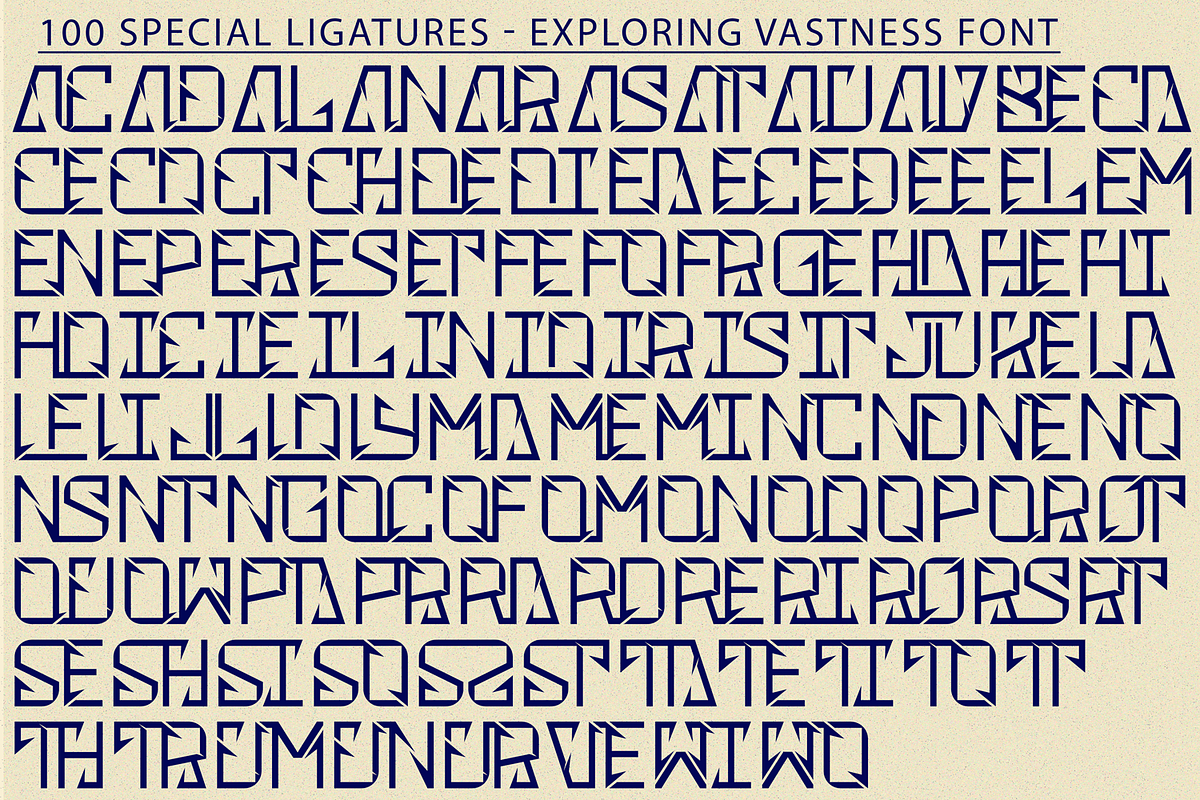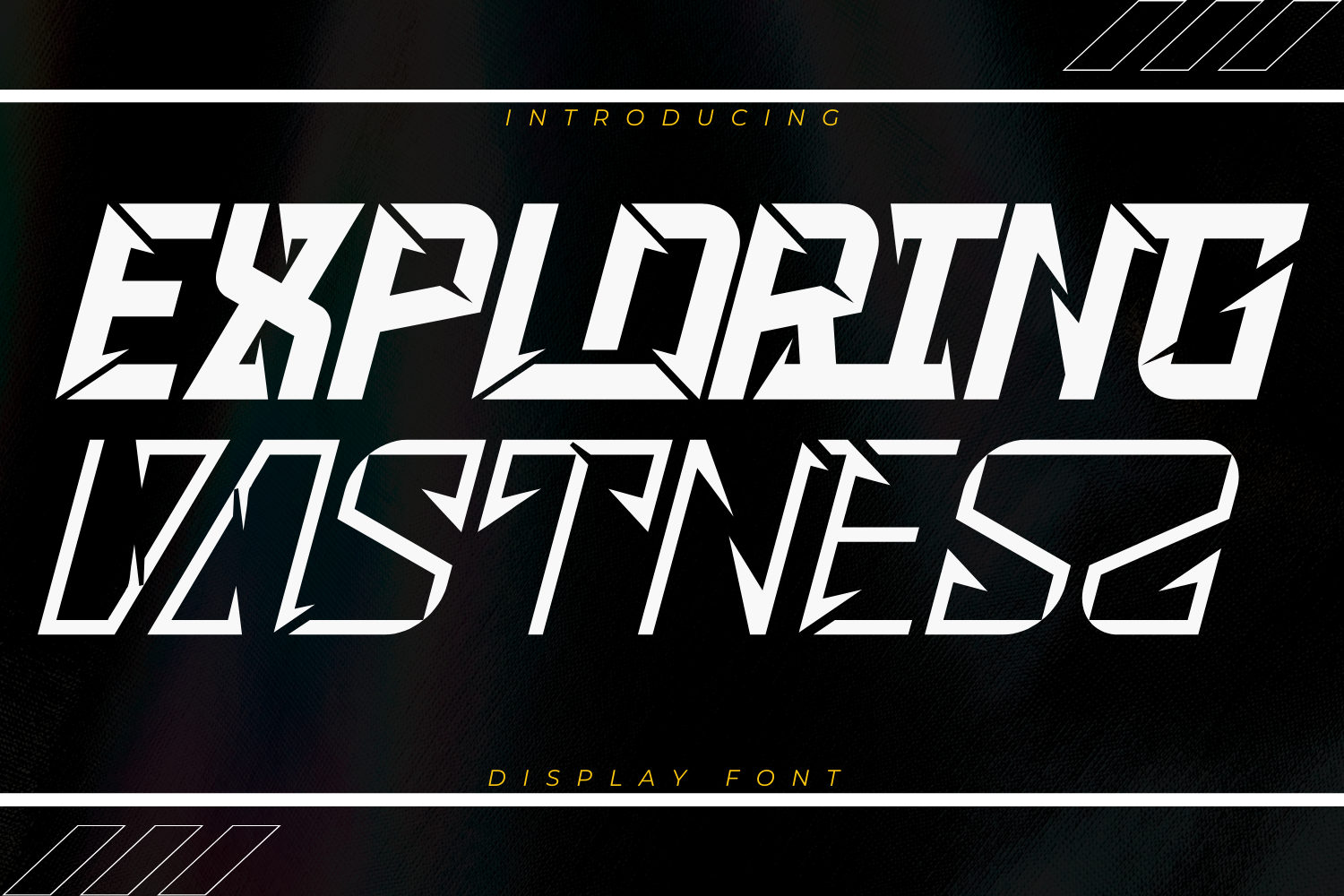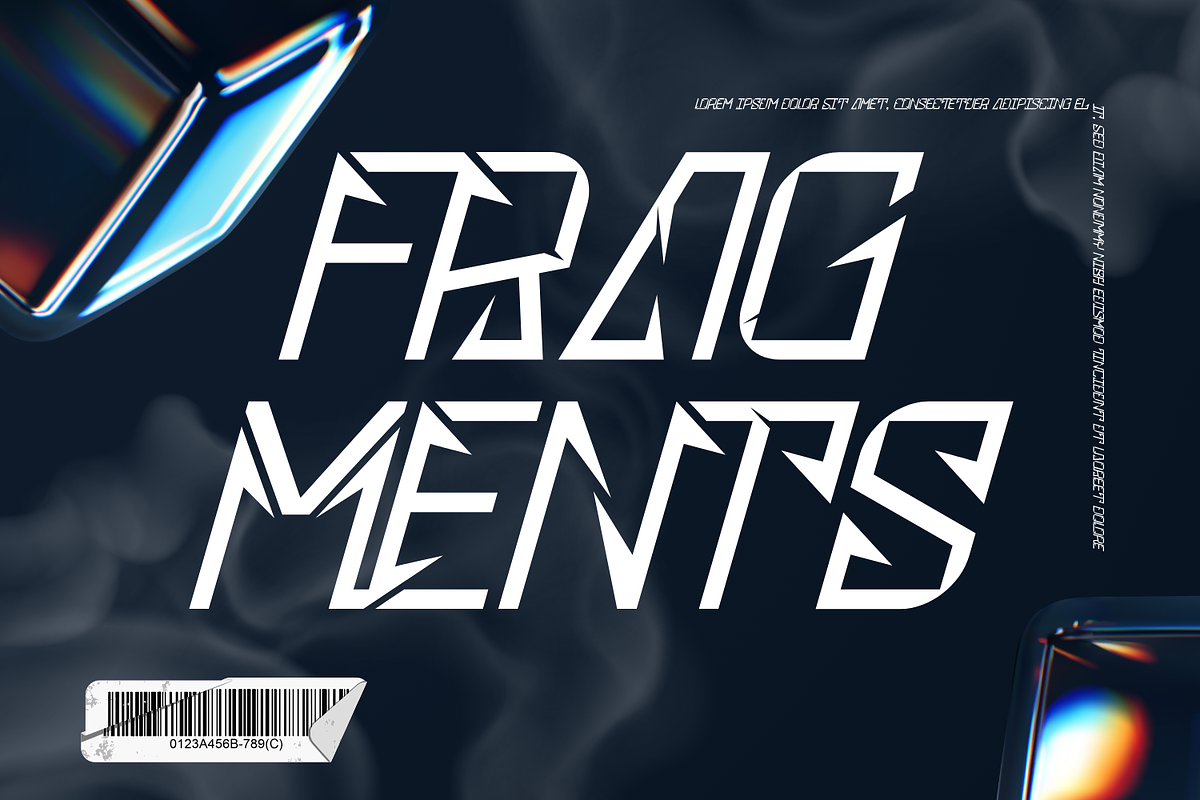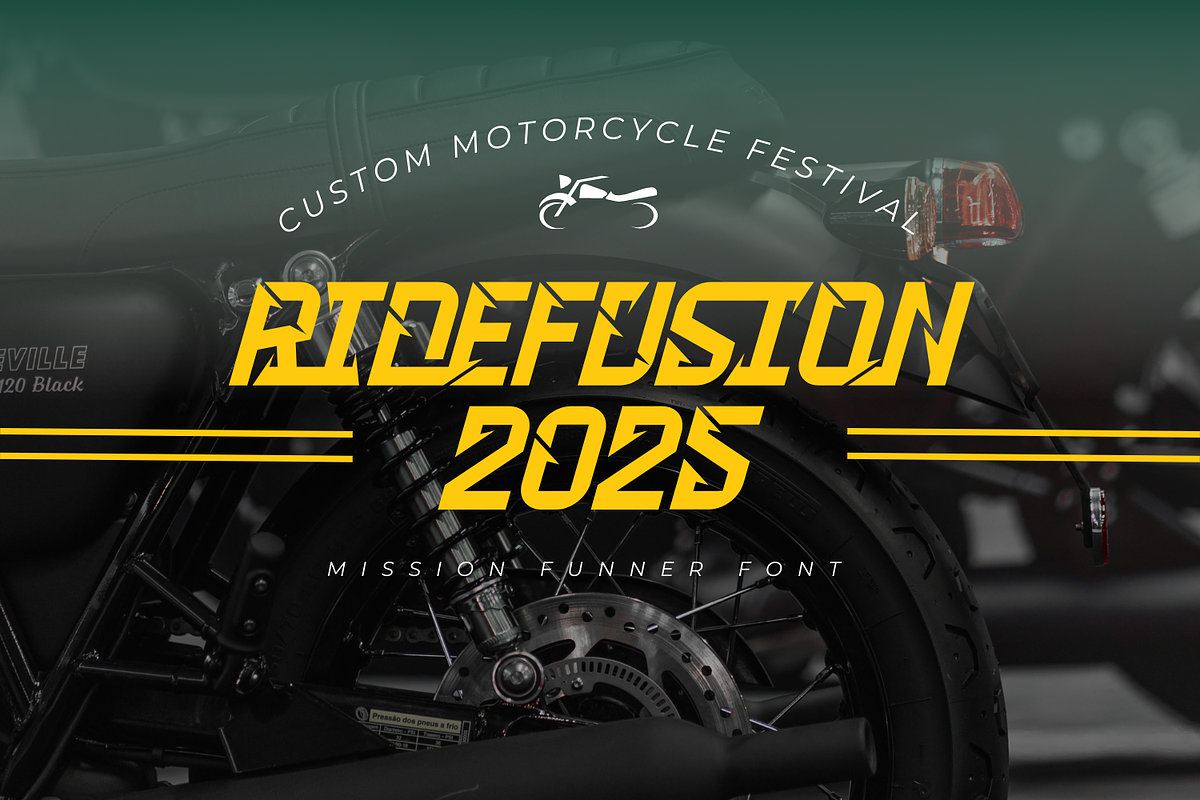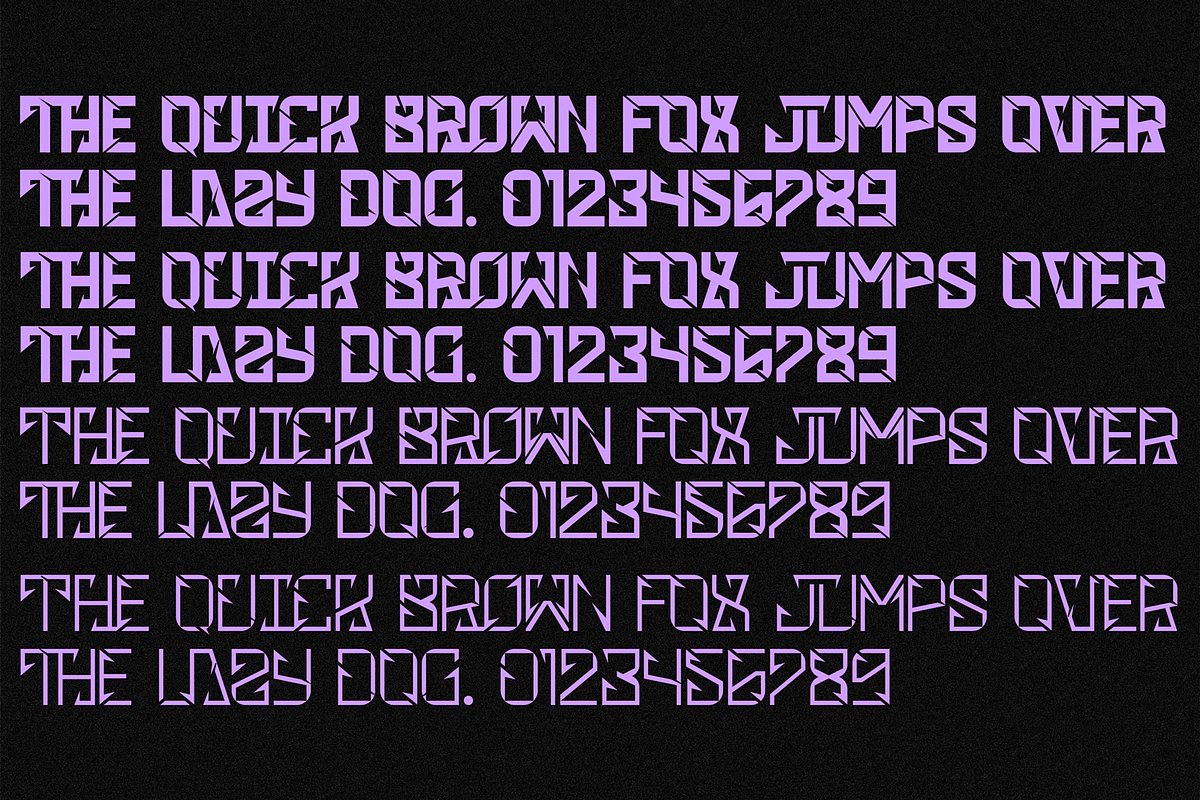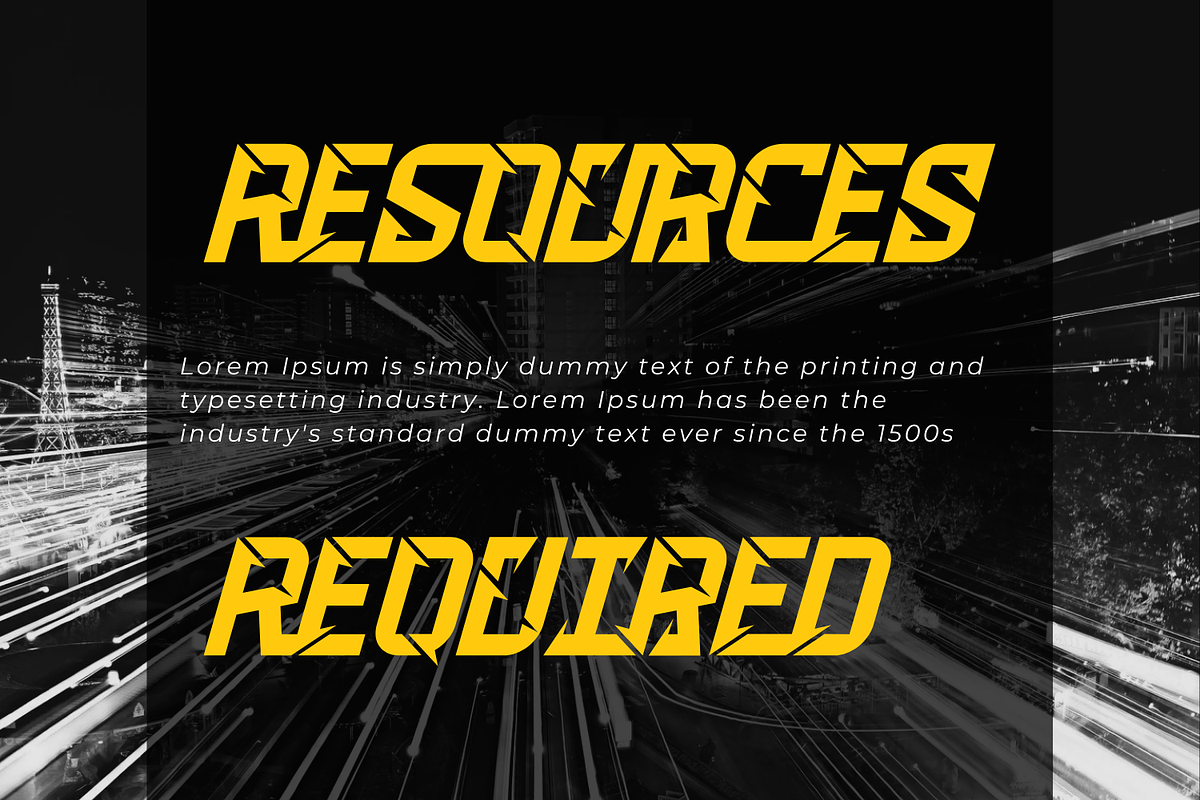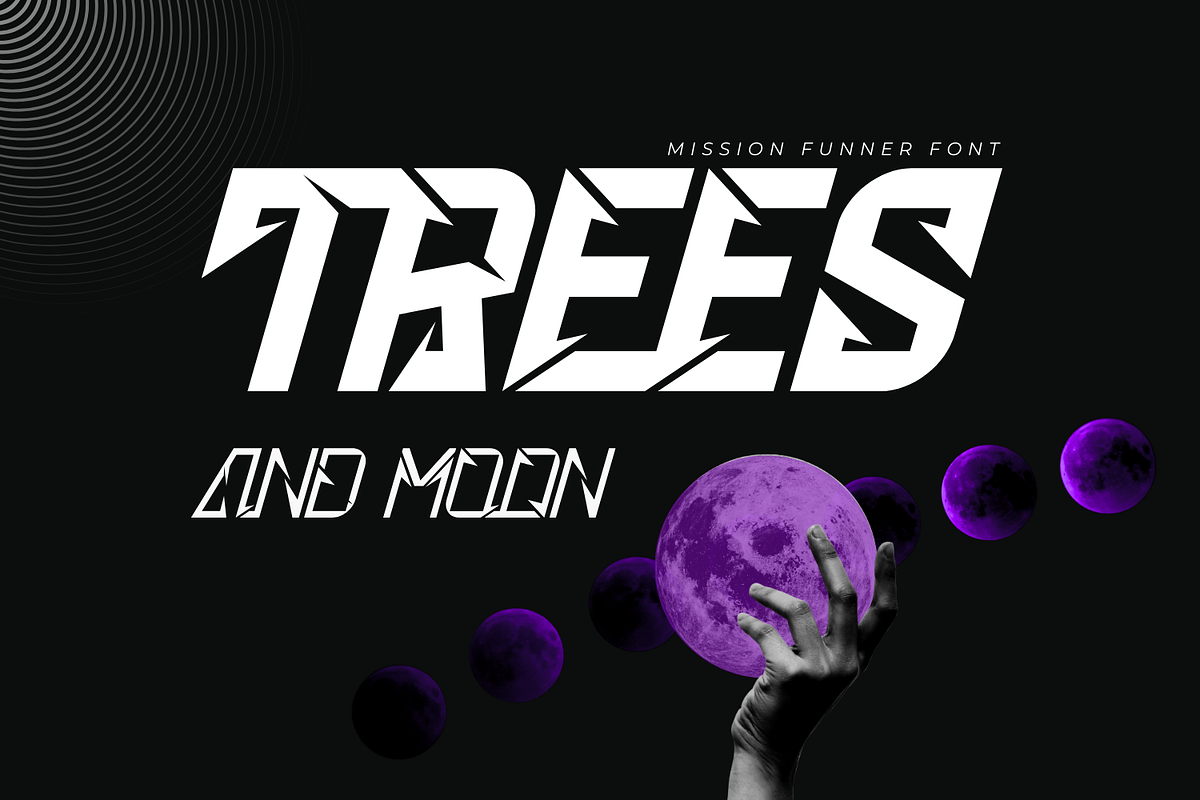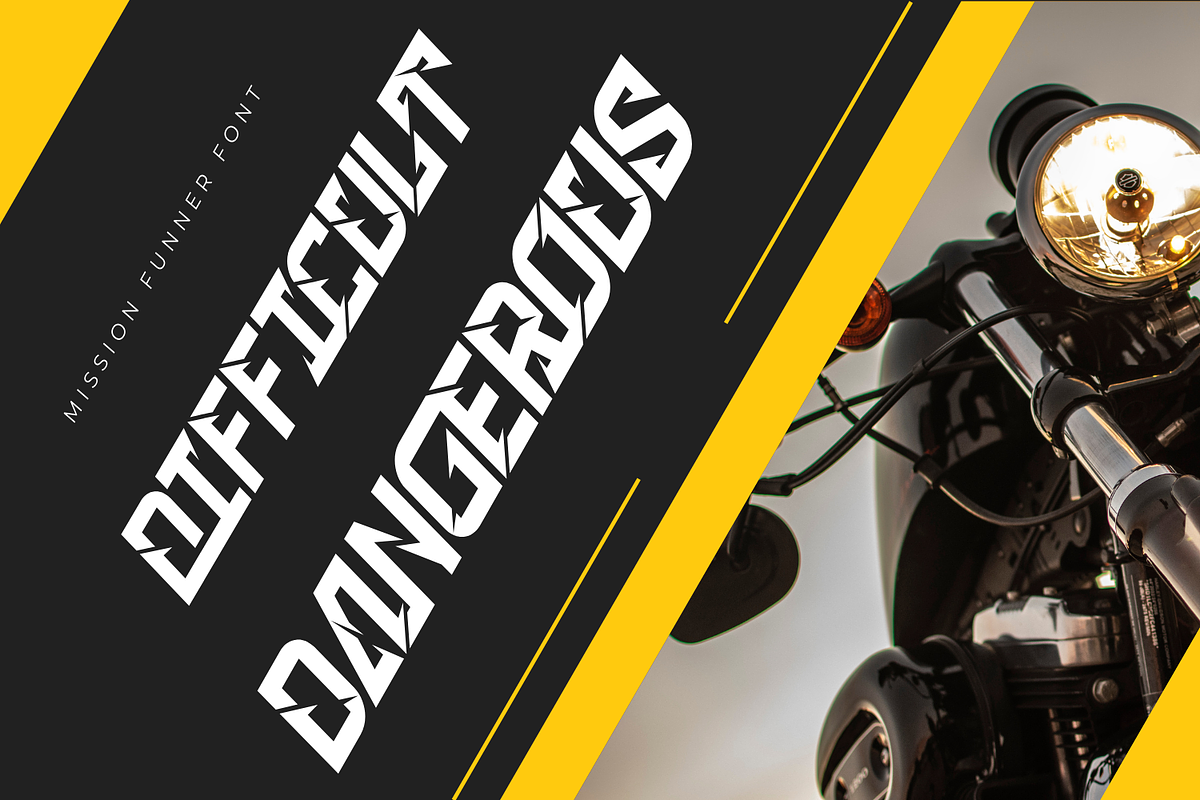
Exploring Vastness - Sport Font
Exploring Vastness Font is a sport display Font. The font is ready to be used for your racing sports or automotive related projects. This font has speed, strong, sharp, fast, powerful, and modern characters. This font will be suitable for racing or game themes of design, such as logos, headlines, posters, sports or race events, automotive posters, magazines, product design, packaging, labels, and other creative projects that need speed and strong font.
Exploring Vastness was built with OpenType features and includes 100 ligatures, alternate, numbers, punctuation, and it also supports other languages.
AC AD AL AN AR AS AT AU AV BE CA CE CH CO CT DE DI EA EC ED EE EL EM EN EP ER ES ET FE FO FR GE HA HE HI HO IE IC IL IN IO IR IS IT JU KE LA LE LI LL LO LY MA ME MI NC ND NE NG NO NT NS OC OF OM ON OO OP OR OT OU OW PA PR RA RD RE RI RO RS RT SE SH SI SO SS ST TA TE TH TI TO TR TT UM UN UR VE WI WO
This font also included full set of:
- Uppercase letters
- Special Ligatures